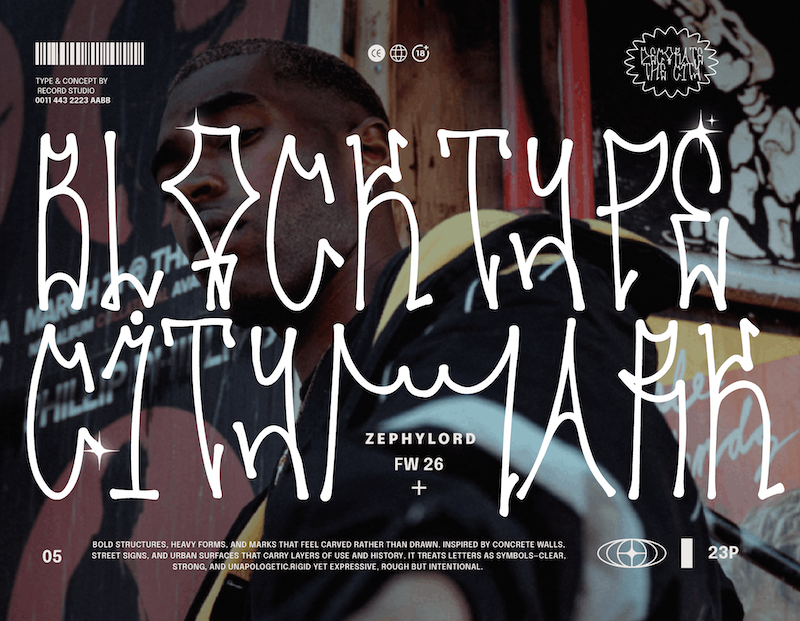
Free download Muralha Font
Preview and download Muralha Font. Created by Måns Grebäck in Script Graffiti styles with Free for personal use license.
NOTE: This font is for PERSONAL USE ONLY! To purchase a commercial license, visit: https://www.mansgreback.com/product/muralha Muralha is an expressive graffiti font inspired by hand-drawn tags, scorched surfaces, and walls that carry stories. Its shapes stretch and compress naturally, inspired by Brazilian pixa��o street art. Decorative marks and subtle irregularities add true gritty character. For questions, please visit https://mansgreback.com/faq |